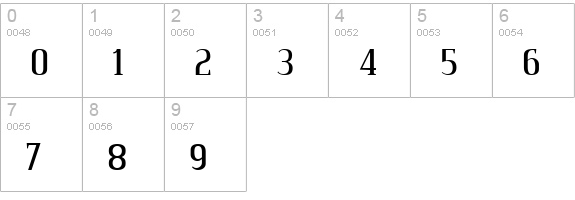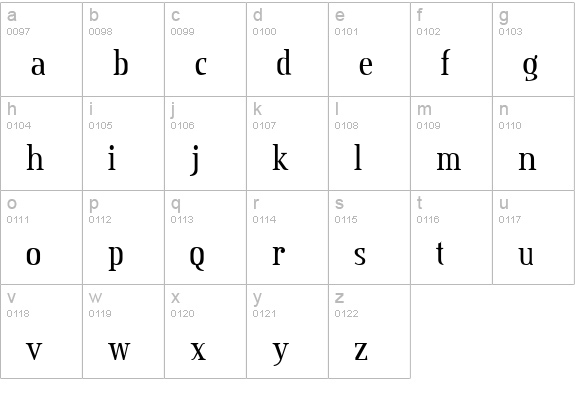
Credit Valley is a modern and elegant font that exudes sophistication and style. Its clean lines and balanced proportions make it perfect for a wide range of design projects, from branding to editorial layouts. The versatile nature of Credit Valley allows it to be used in both headings and body text, adding a touch of class to any design. What sets Credit Valley apart is not only its timeless aesthetic, but also the fact that it is available for free download at FontsMarket.com. This means that you can easily access this high-quality font without any cost, making it a valuable addition to your design toolkit. Whether you're a professional graphic designer or just someone looking to elevate their creative projects, Credit Valley is the perfect choice for adding a touch of sophistication to your work.